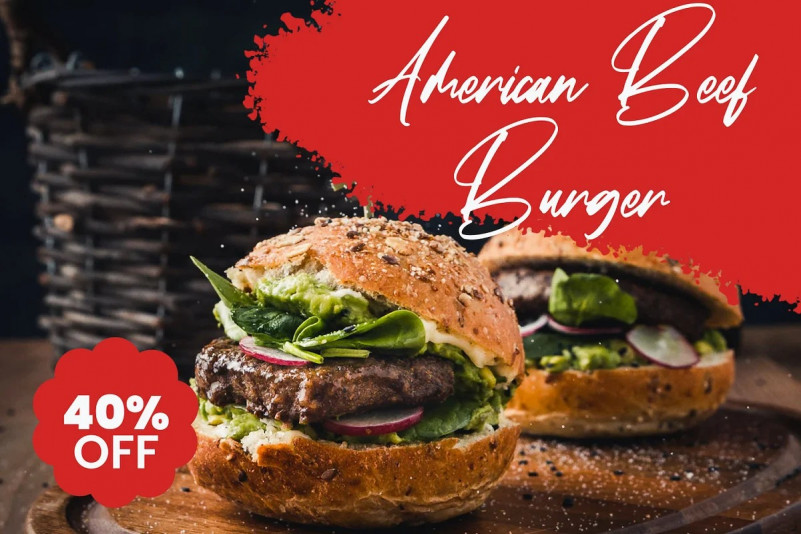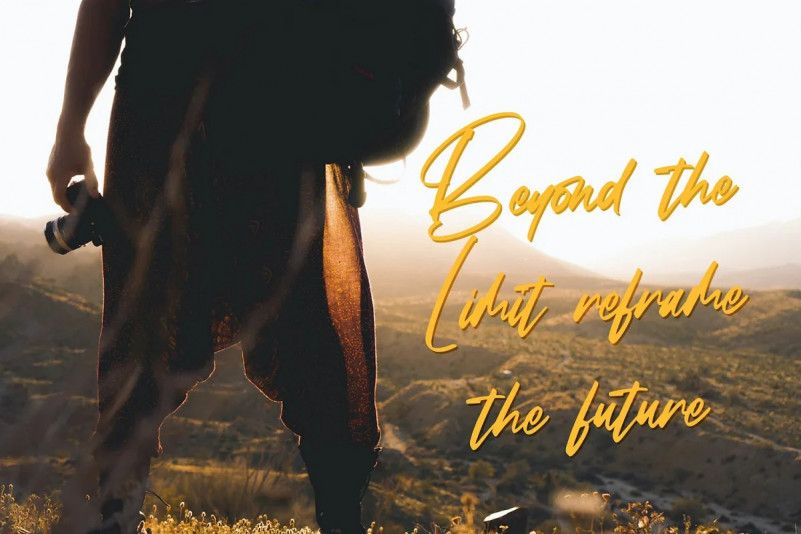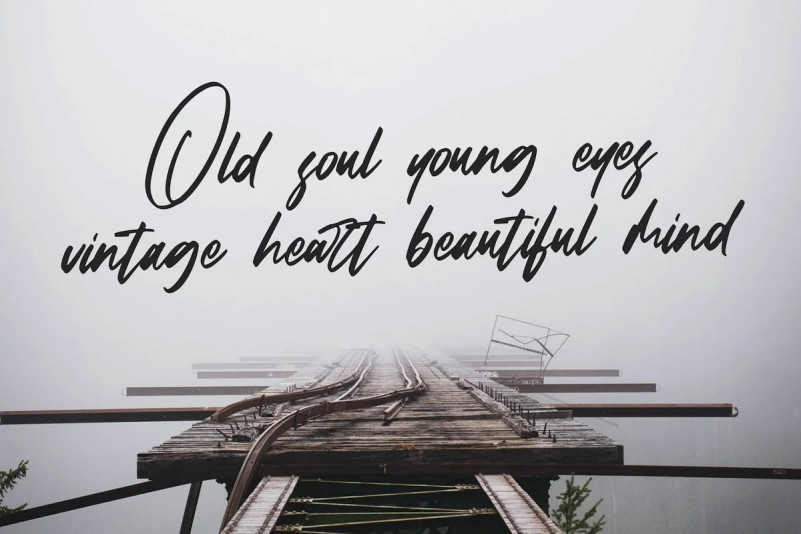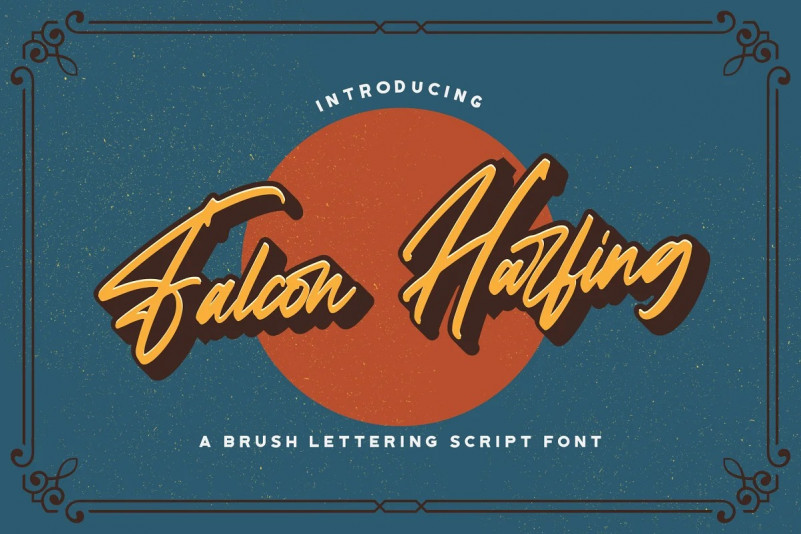
Falcon Harfing Font
Falcon Harfing Handwritten Font
This is a signature script font, With a high contrast stroke clean and fun characters. It is curved, rounded, and has an unique vintage style, that is perfect for branding. Add it to your most creative ideas and notice how it makes them come alive!